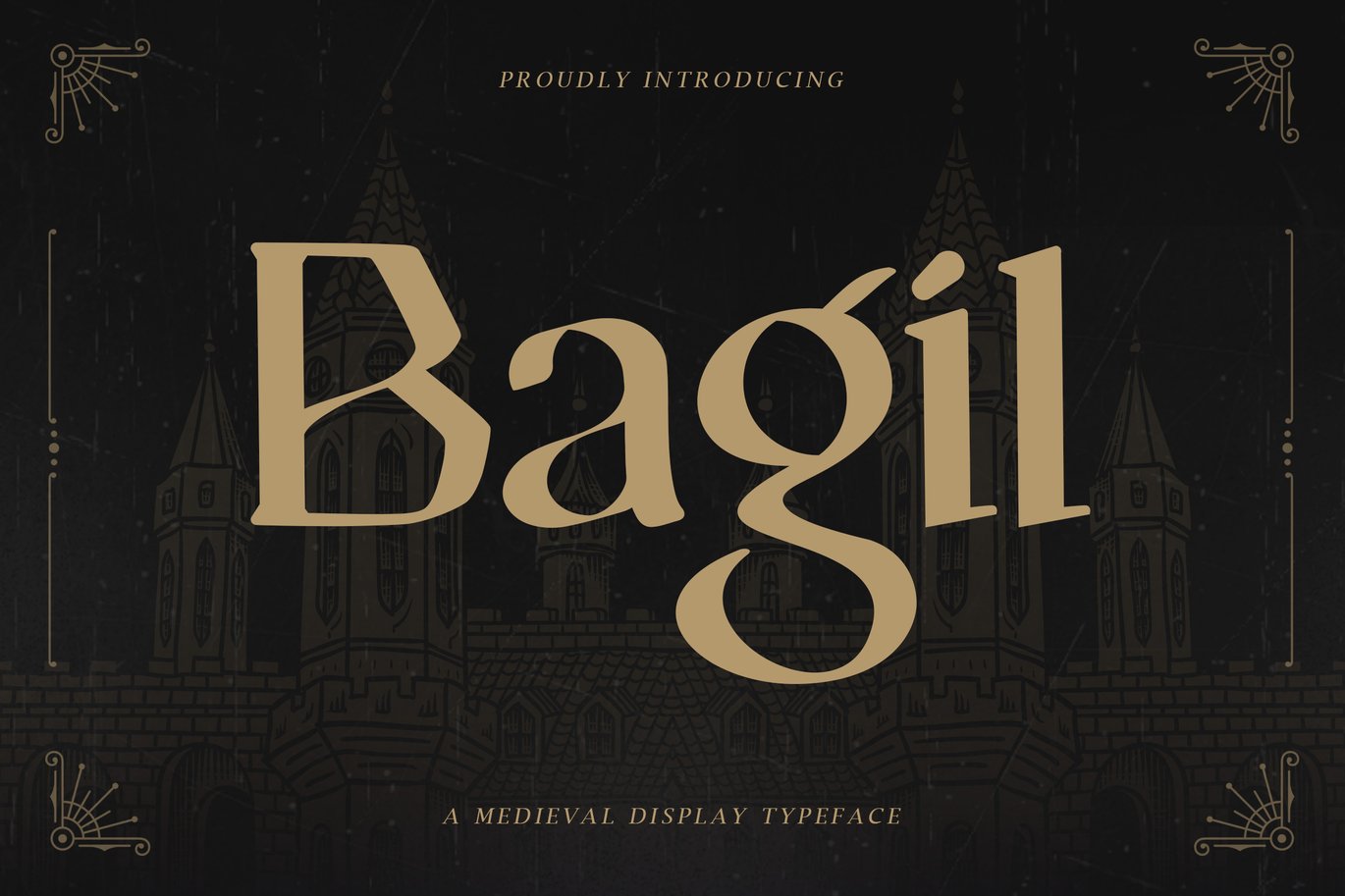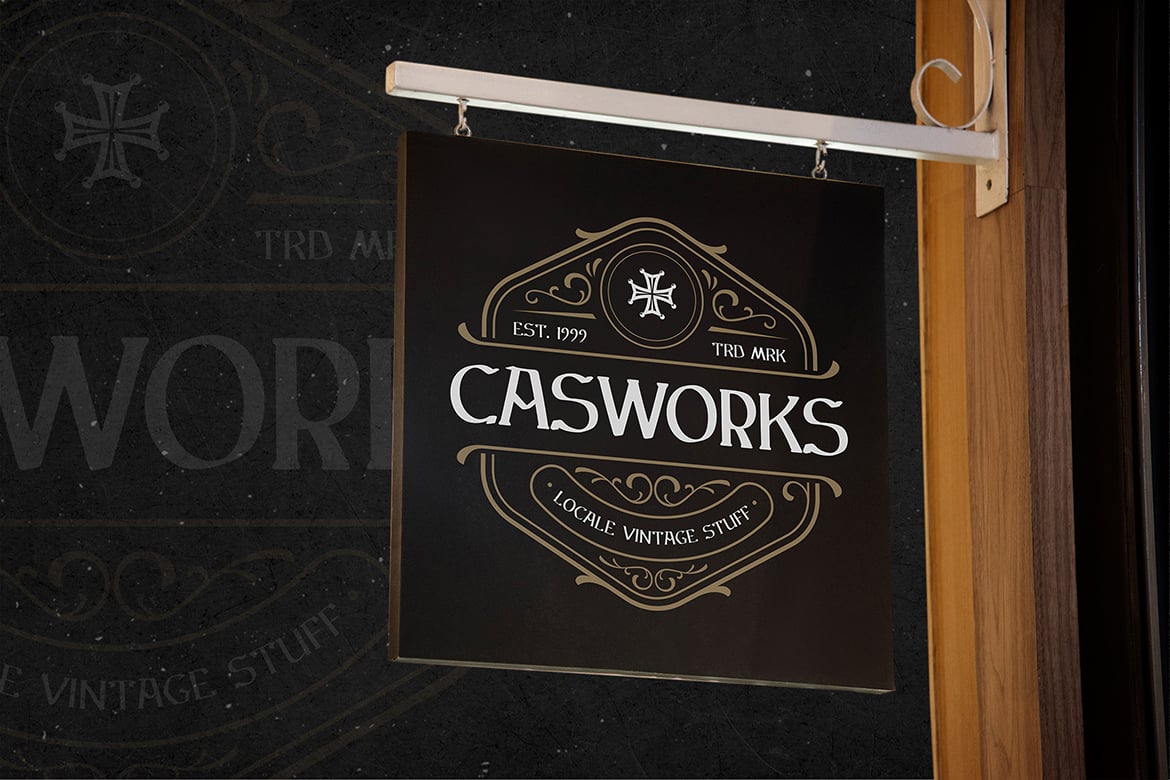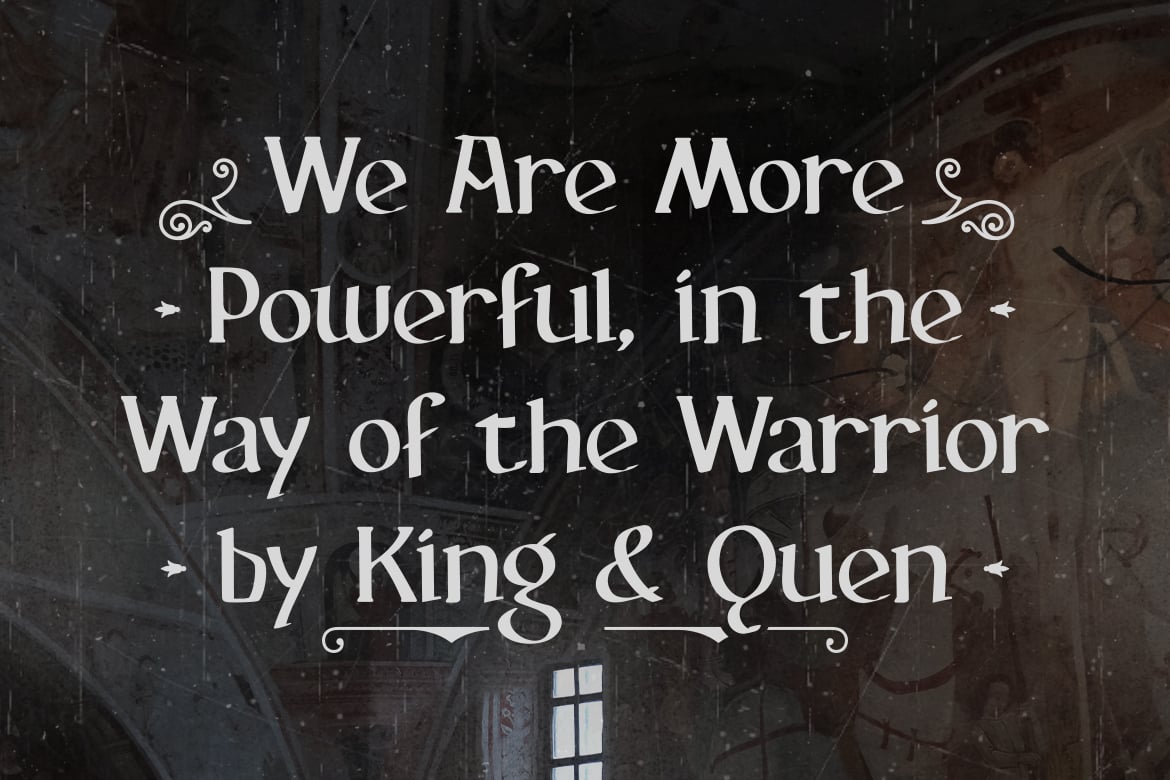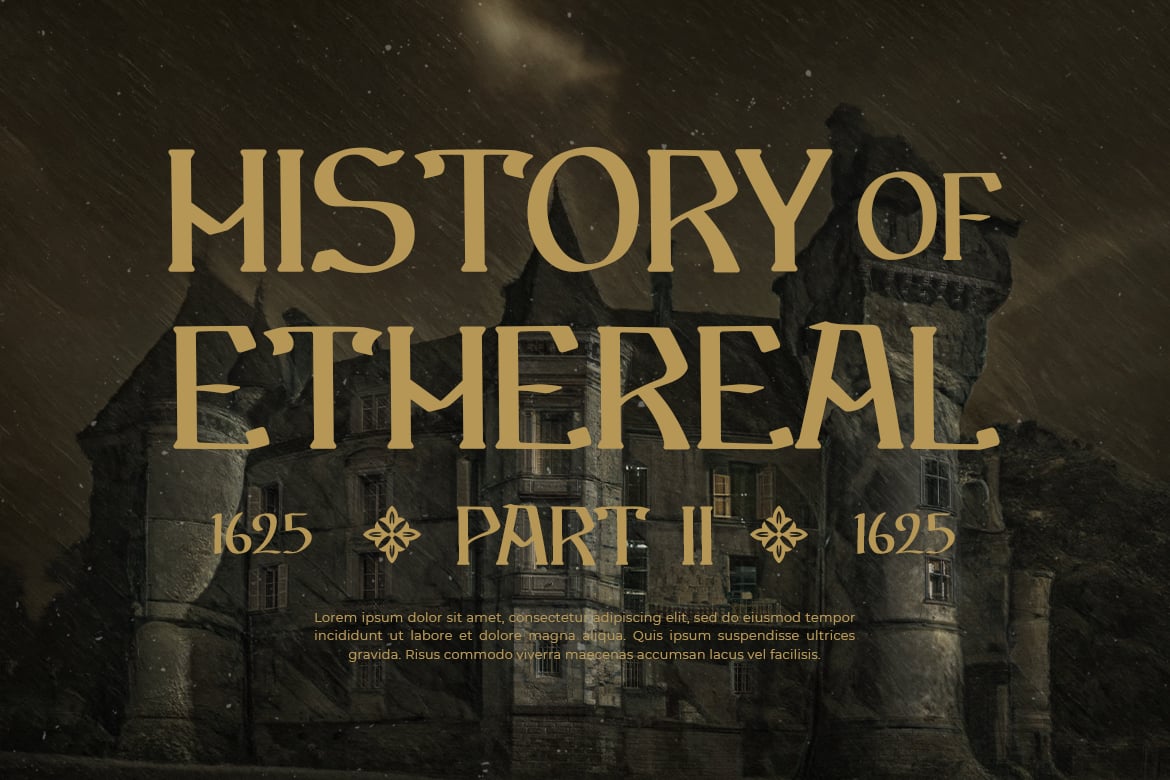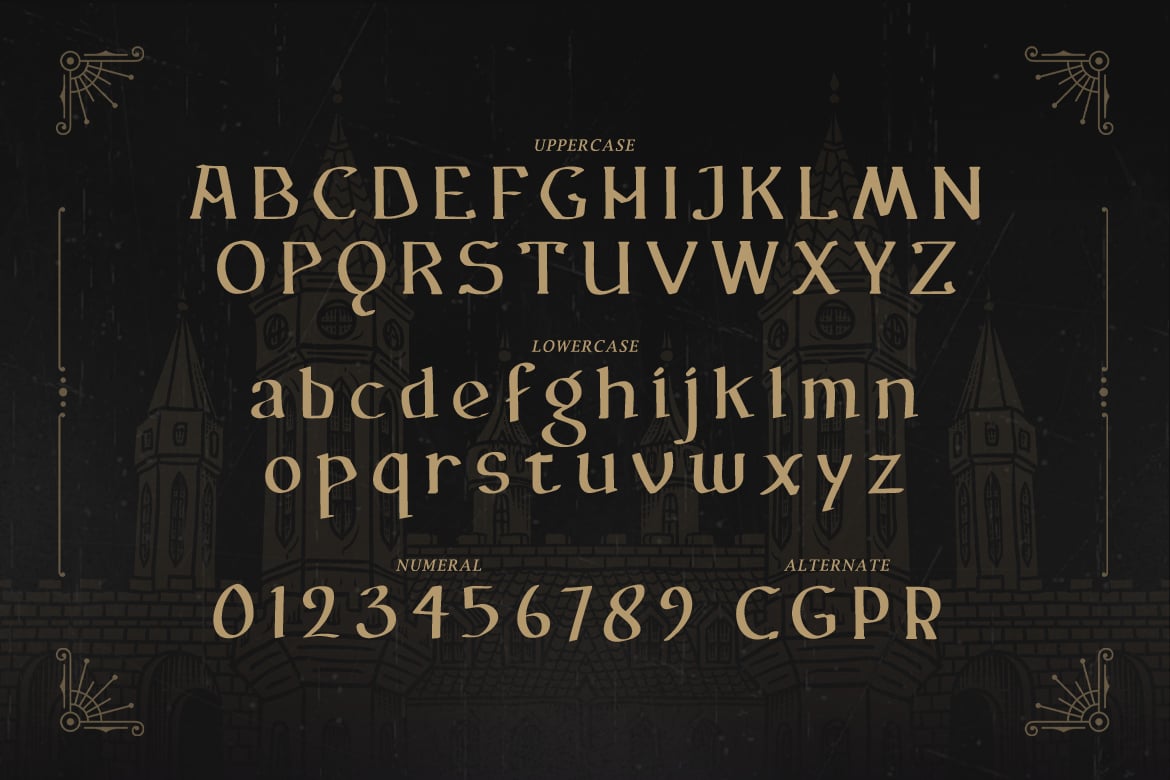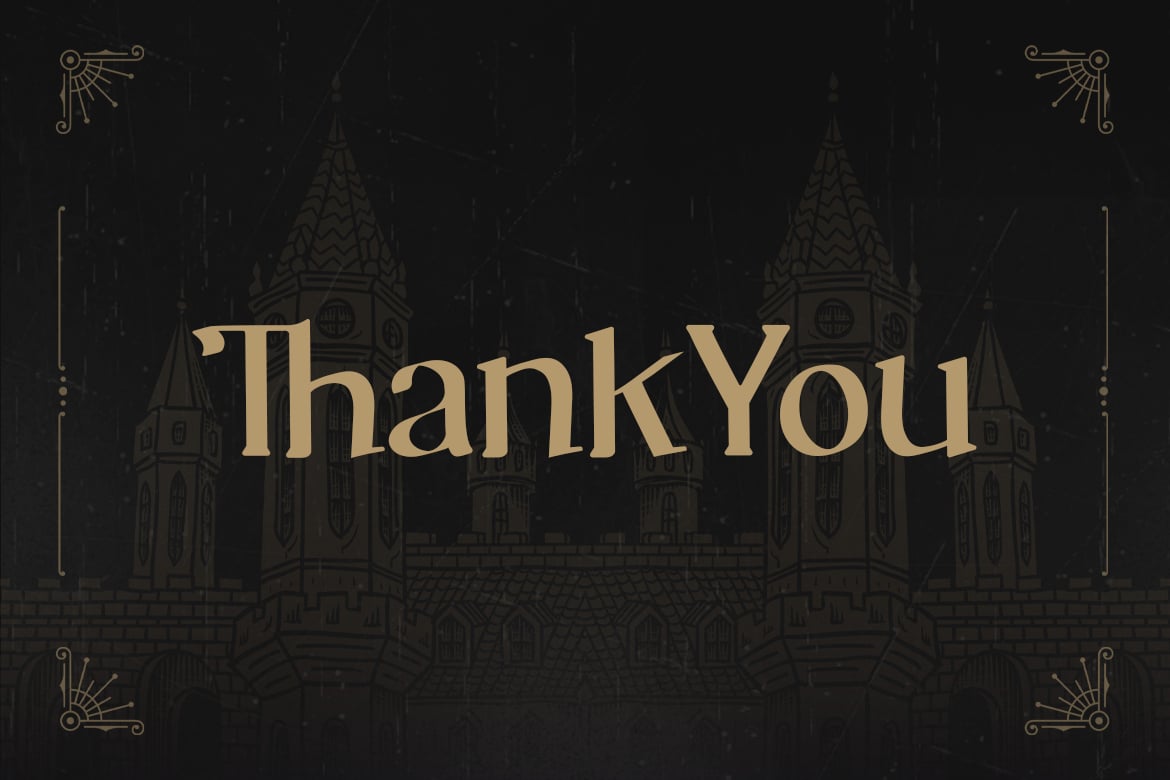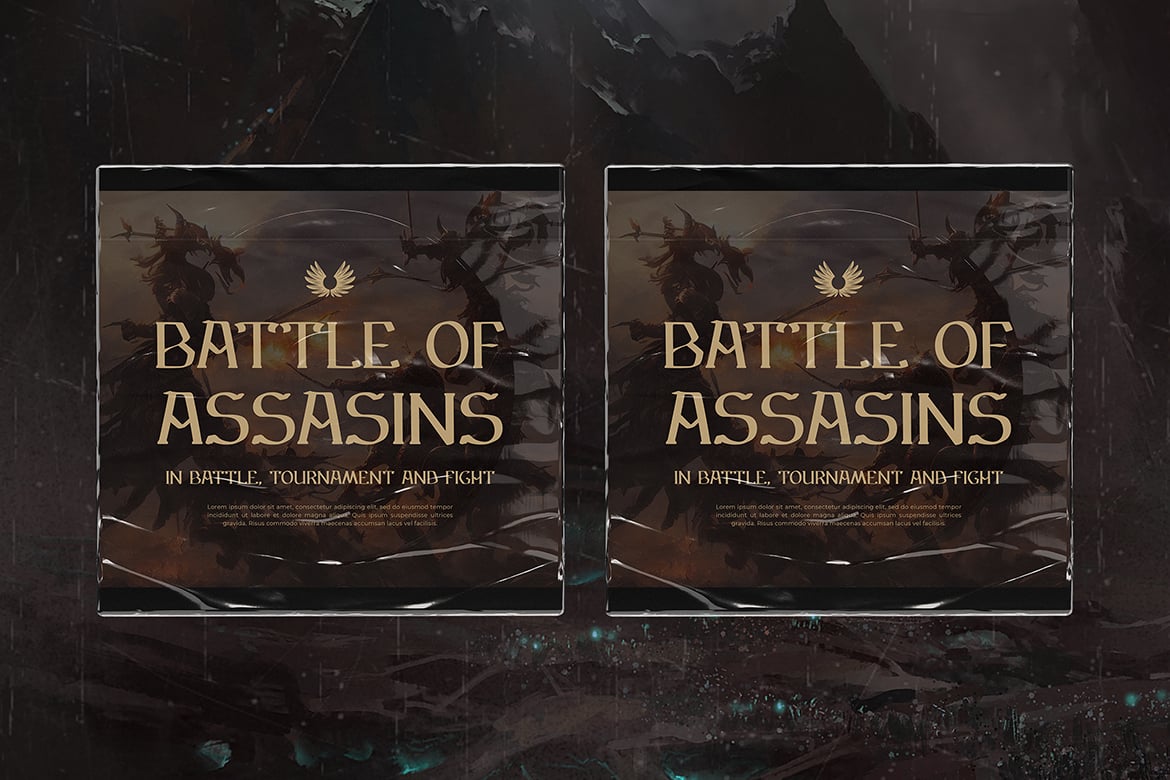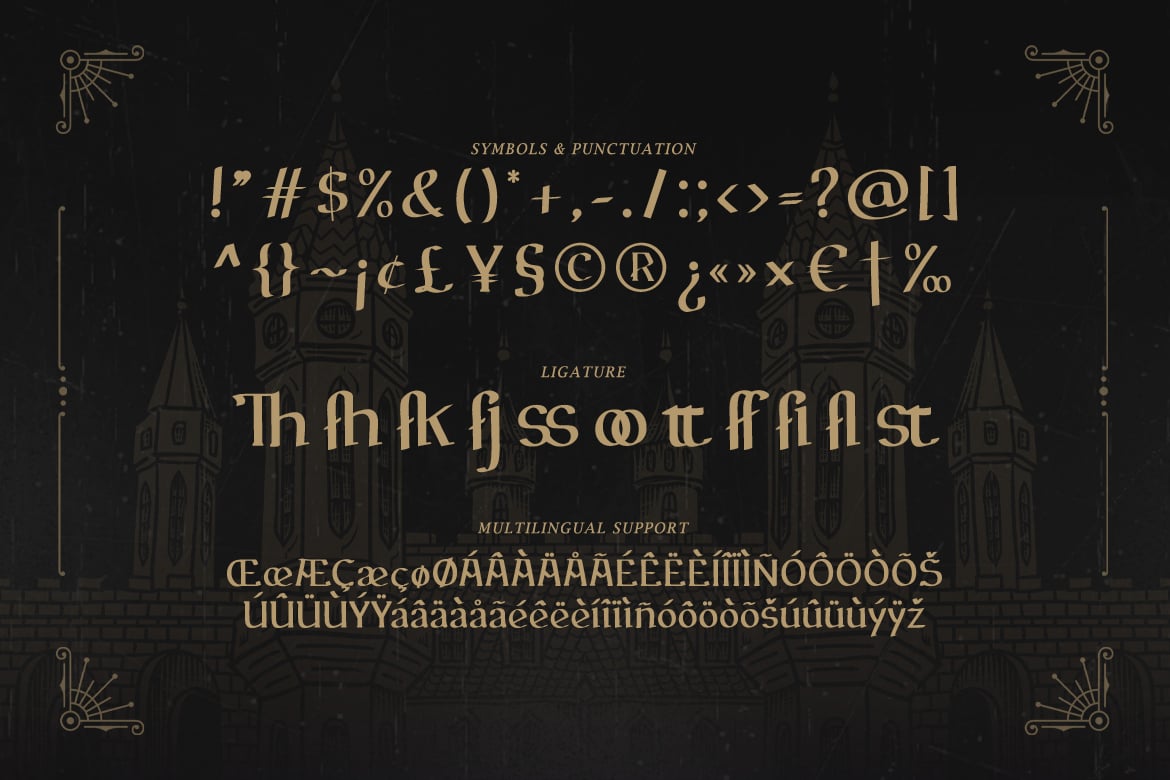
Bagil – Medieval Display Typeface
Introducing Bagil – A Medieval Display Typeface that brings the charm and character of the Middle Ages to your designs. This font features a unique and intricate design that is perfect for projects that require a touch of old-world elegance.
Bagil is a versatile font that can be used for a variety of projects, including book covers, posters, packaging, logos, and more. Its striking and decorative design makes it a great choice for designs that need to stand out and make an impact.